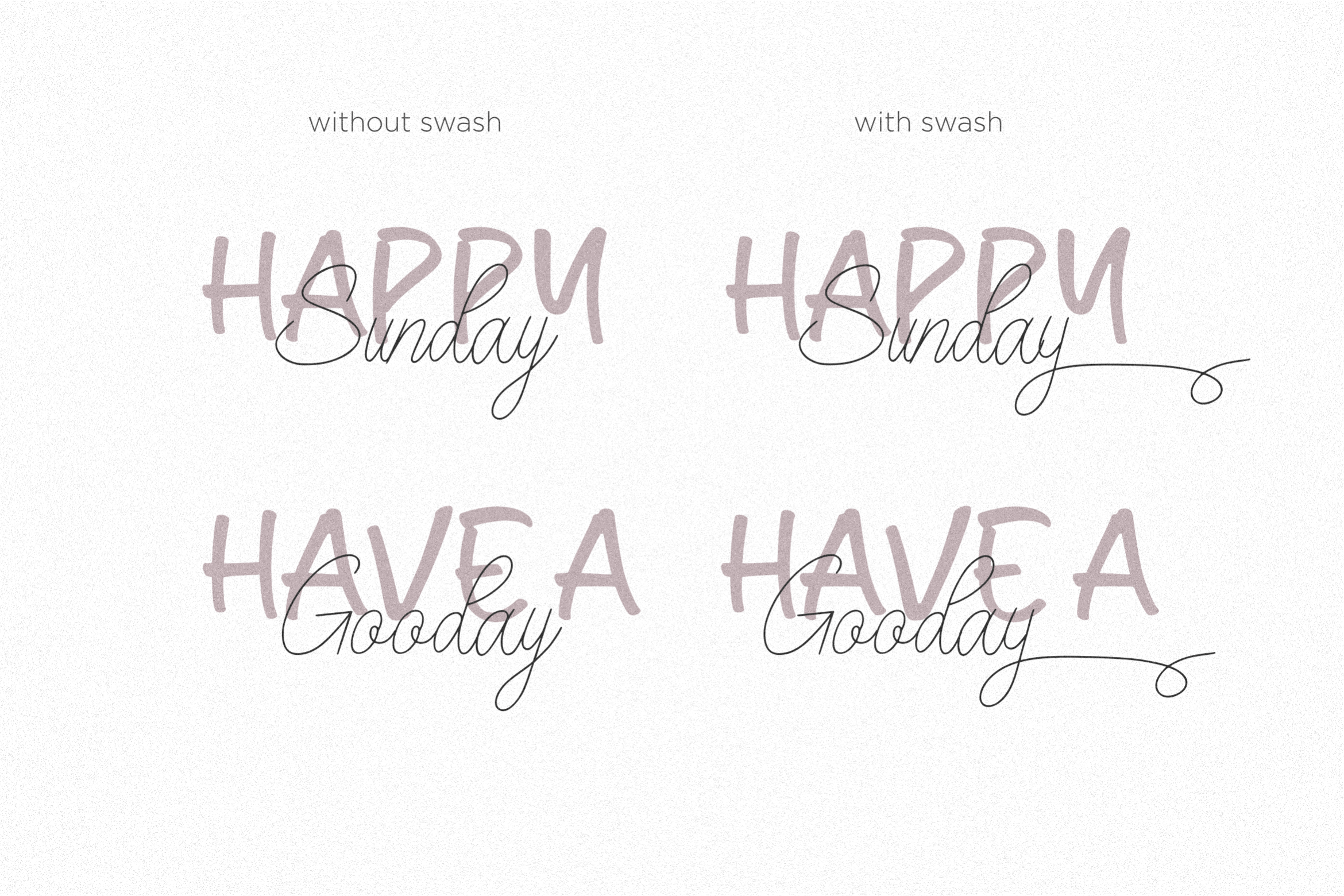
Bailey Sidney Font
Bailey Sidney Script Font
It’s a handwritten and sweet monoline typeface duo with characters that dance along the baseline. It will add a luxury spark to any design project that you wish to create! This font is PUA encoded which means you can access all of the amazing glyphs and ligatures with ease!